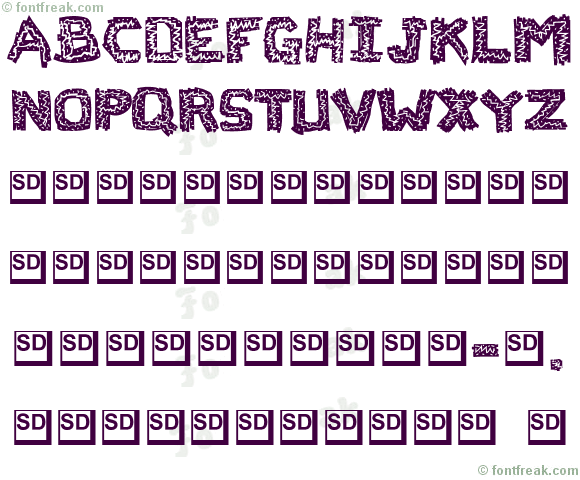
Flak Jacket
Flak Jacket, designed by Stanley Roland Frantz, is a unique display font that combines an edgy, industrial aesthetic with a playful twist. This freeware font stands out with its bold, chunky letters that feature a distinct, textured appearance, reminiscent of weathered surfaces. The irregularities in the strokes and the varying thickness create an eye-catching visual contrast, making it ideal for projects that seek to convey a sense of ruggedness and creativity.
The font's design is characterized by its strong geometric shapes and a slightly distressed look, which gives it an unconventional charm. The spacing between the characters is well-balanced, ensuring readability while maintaining a dynamic presence. Flak Jacket's decorative elements enhance its personality, making it a great choice for a variety of applications.
This font is particularly well-suited for use in contexts such as movie posters, where its boldness can grab attention and evoke intrigue. It also works wonderfully for album covers, especially in genres like rock or alternative music, where a raw aesthetic is often favored. Additionally, Flak Jacket can add character to restaurant menus or promotional materials, giving a unique flair that can set a brand apart. Graphic designers, small business owners, and content creators will find this font an invaluable asset in their design toolkit.
What truly sets the Flak Jacket font apart is its ability to blend a sense of playfulness with a rugged vibe, making it versatile for both casual and more serious projects. For anyone looking to make a statement, the Flak Jacket font free download is an excellent choice to elevate their design work and leave a lasting impression.